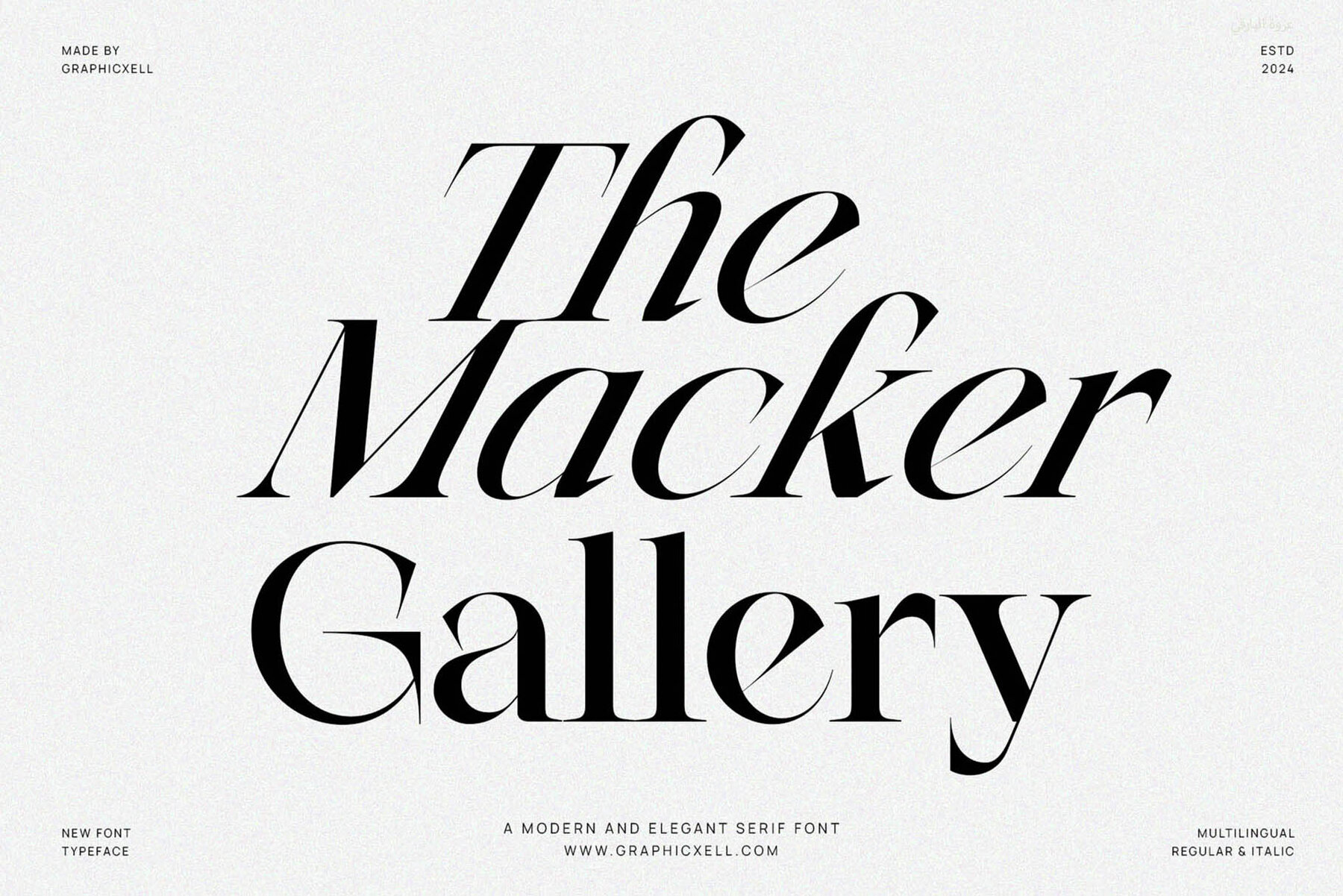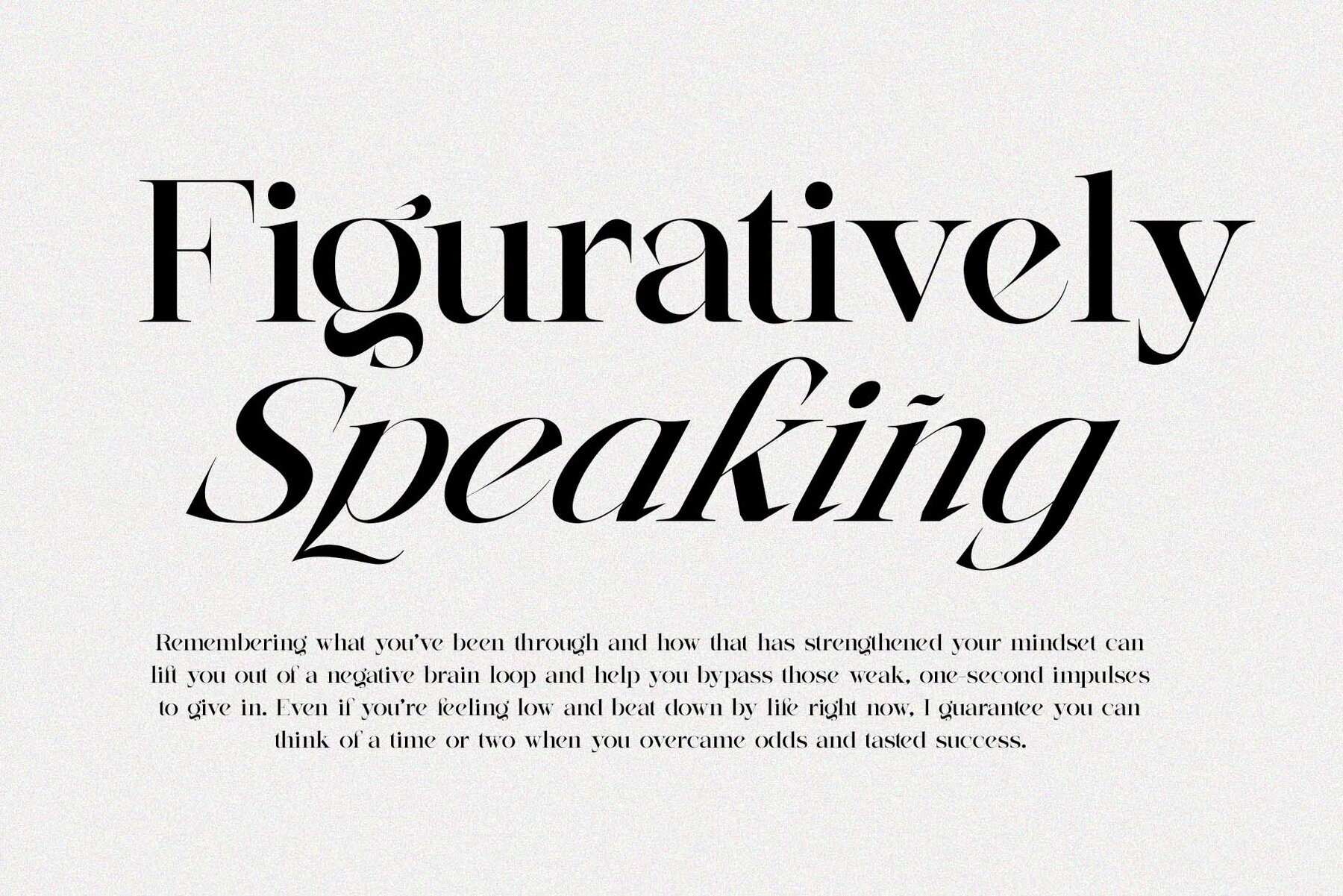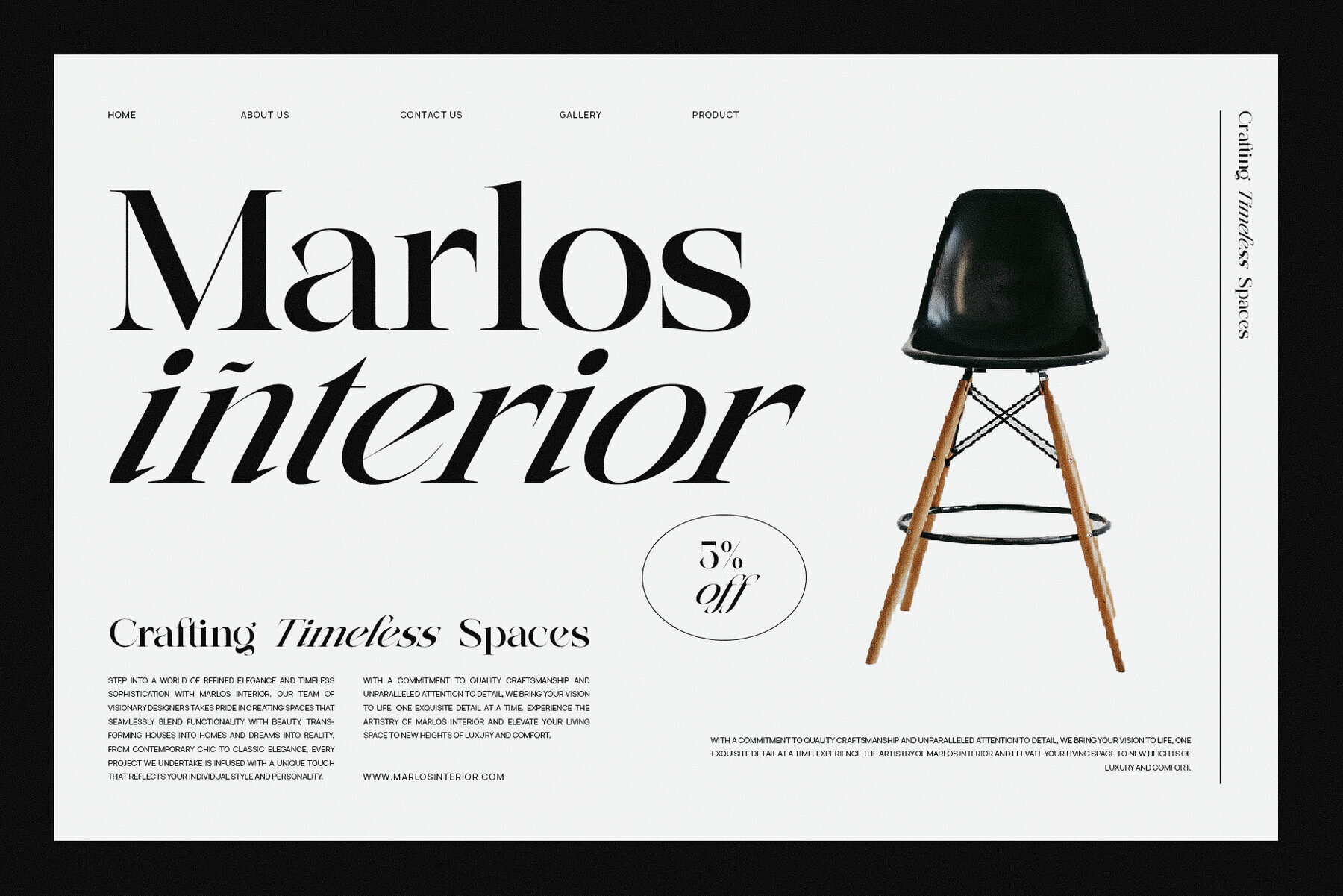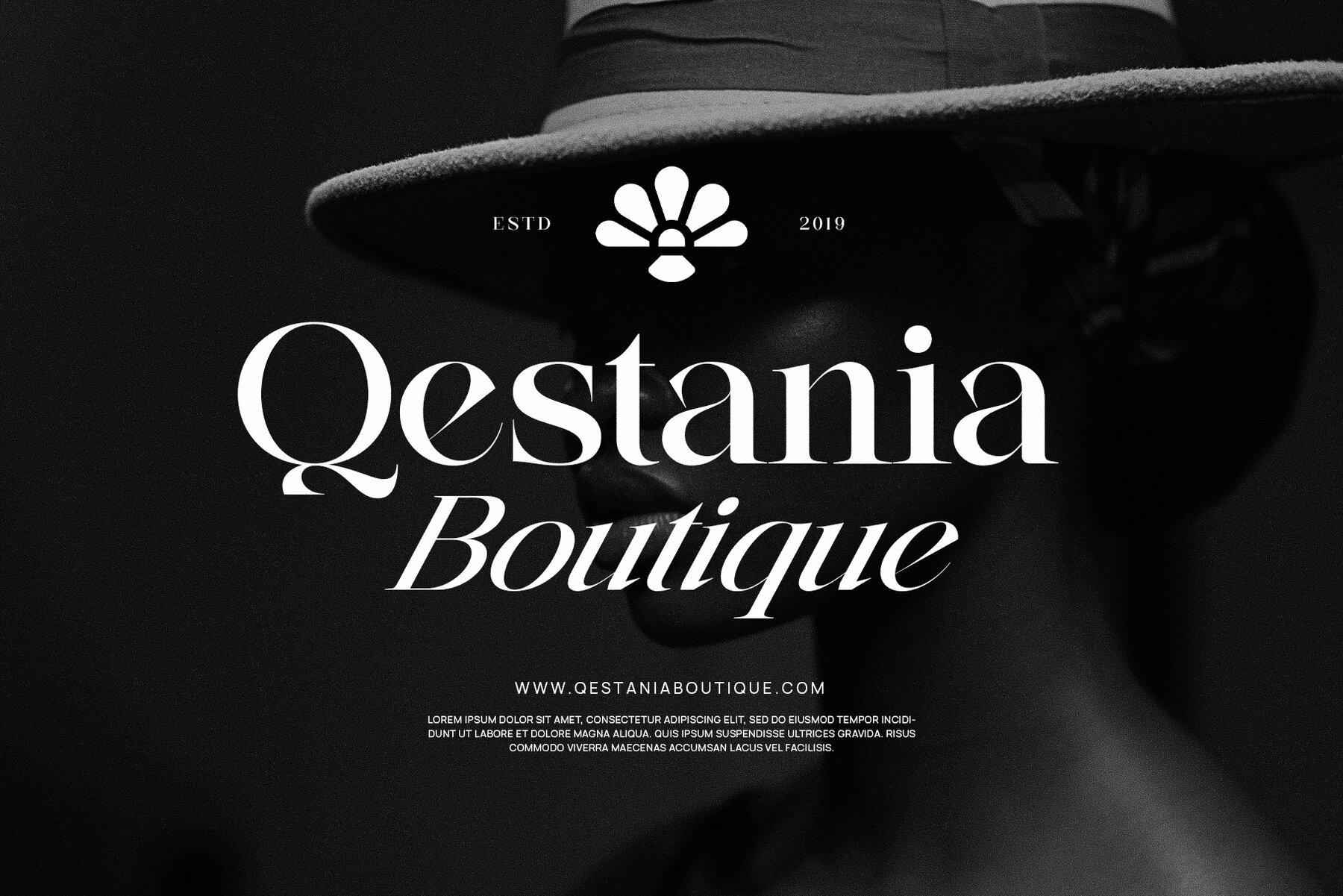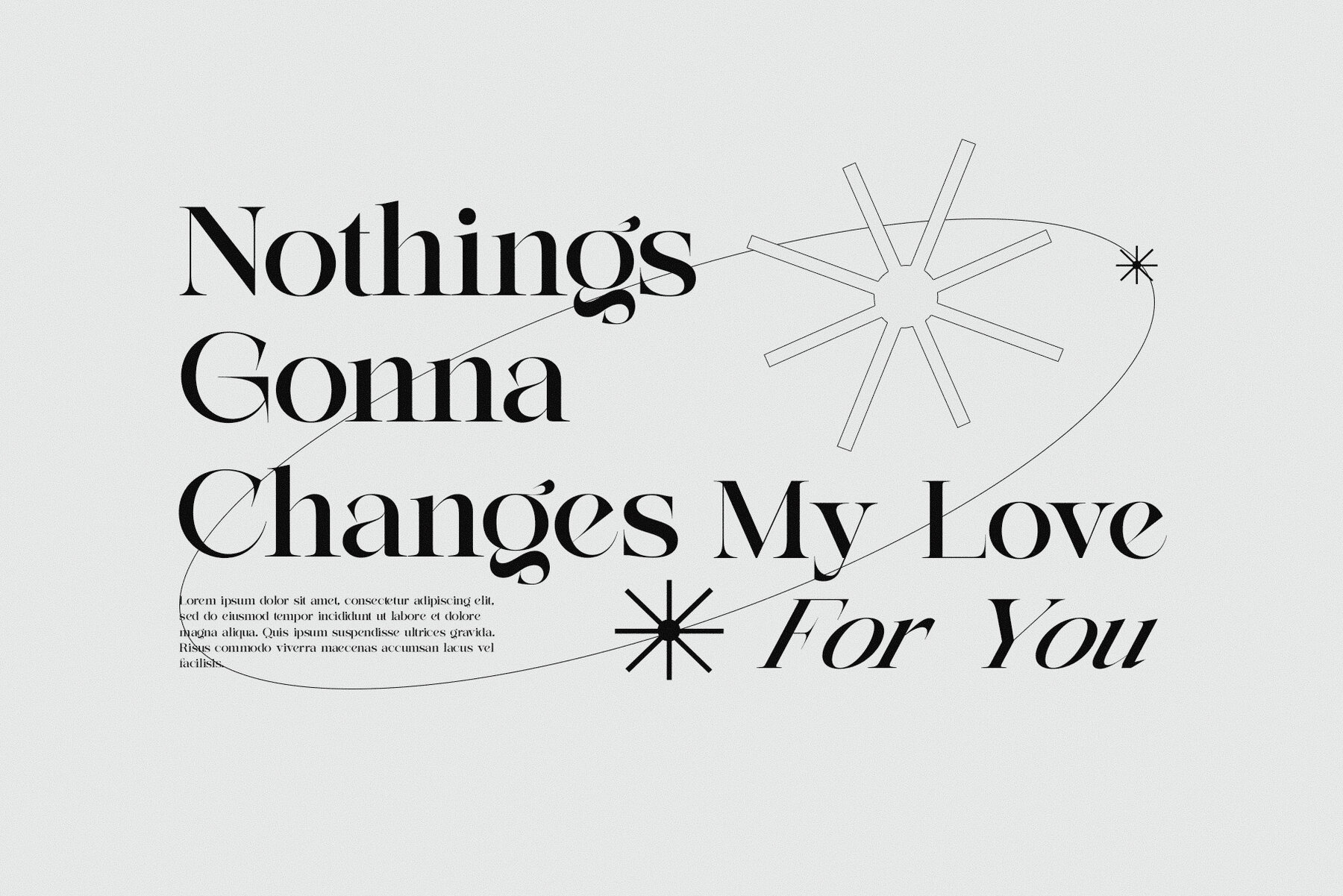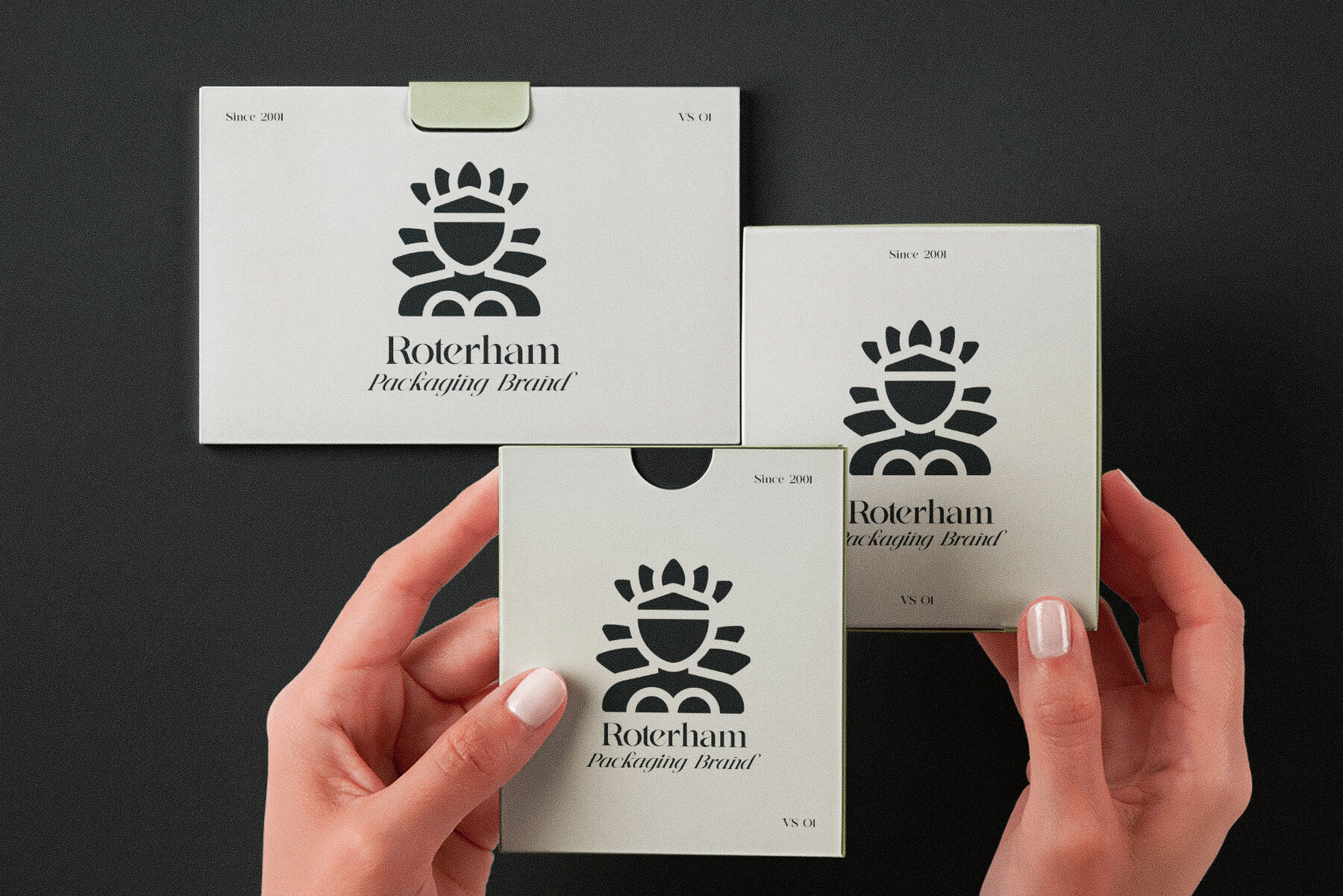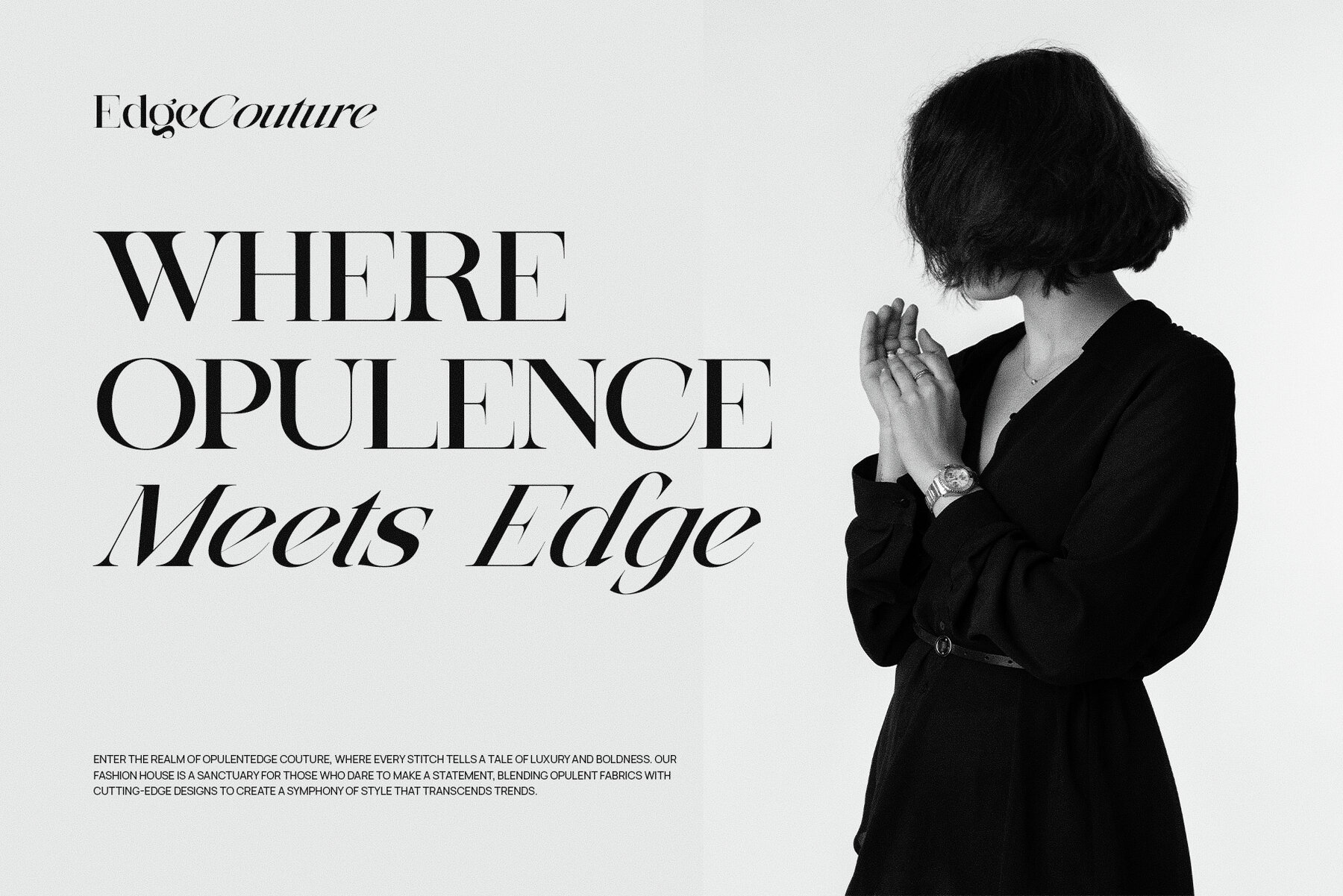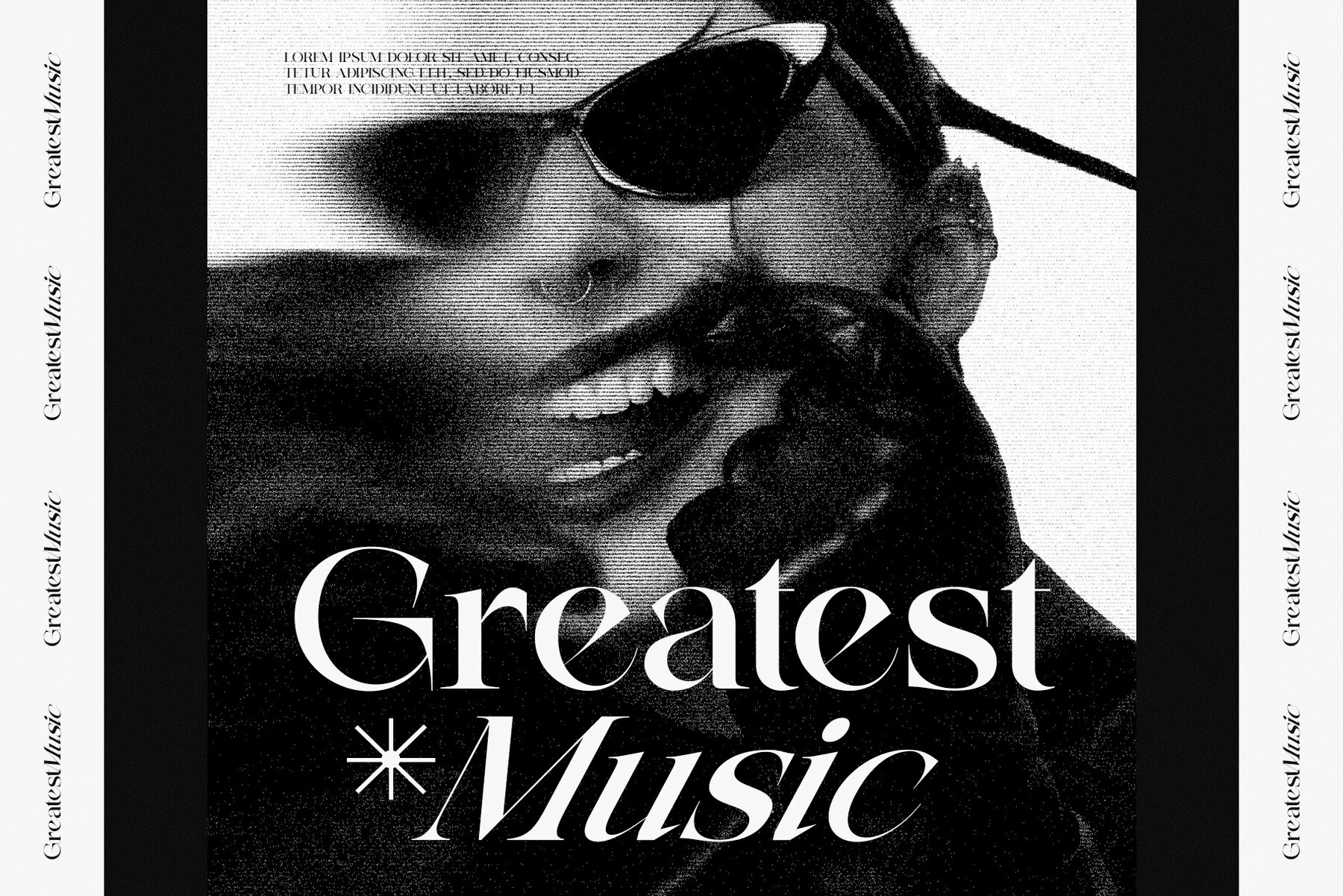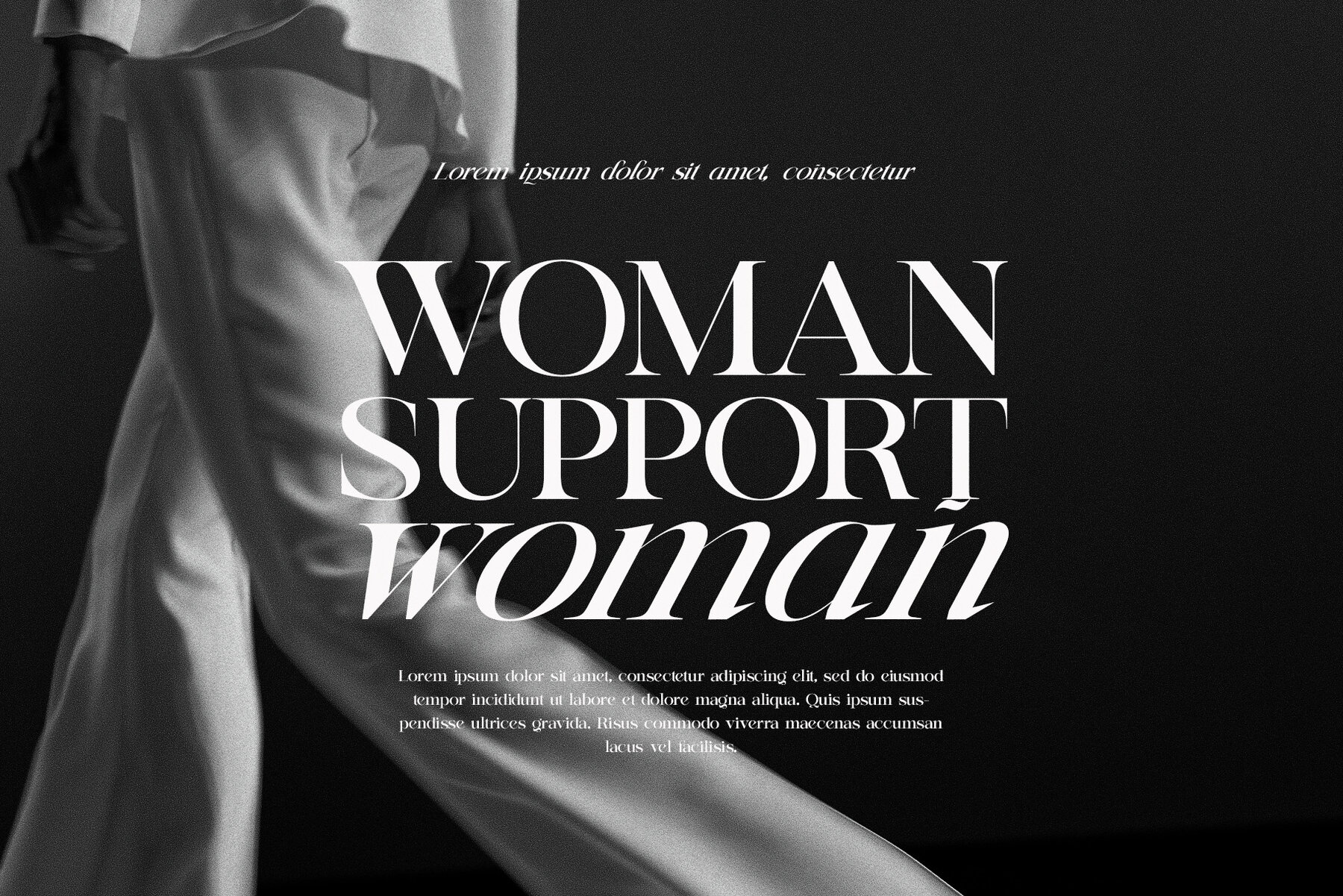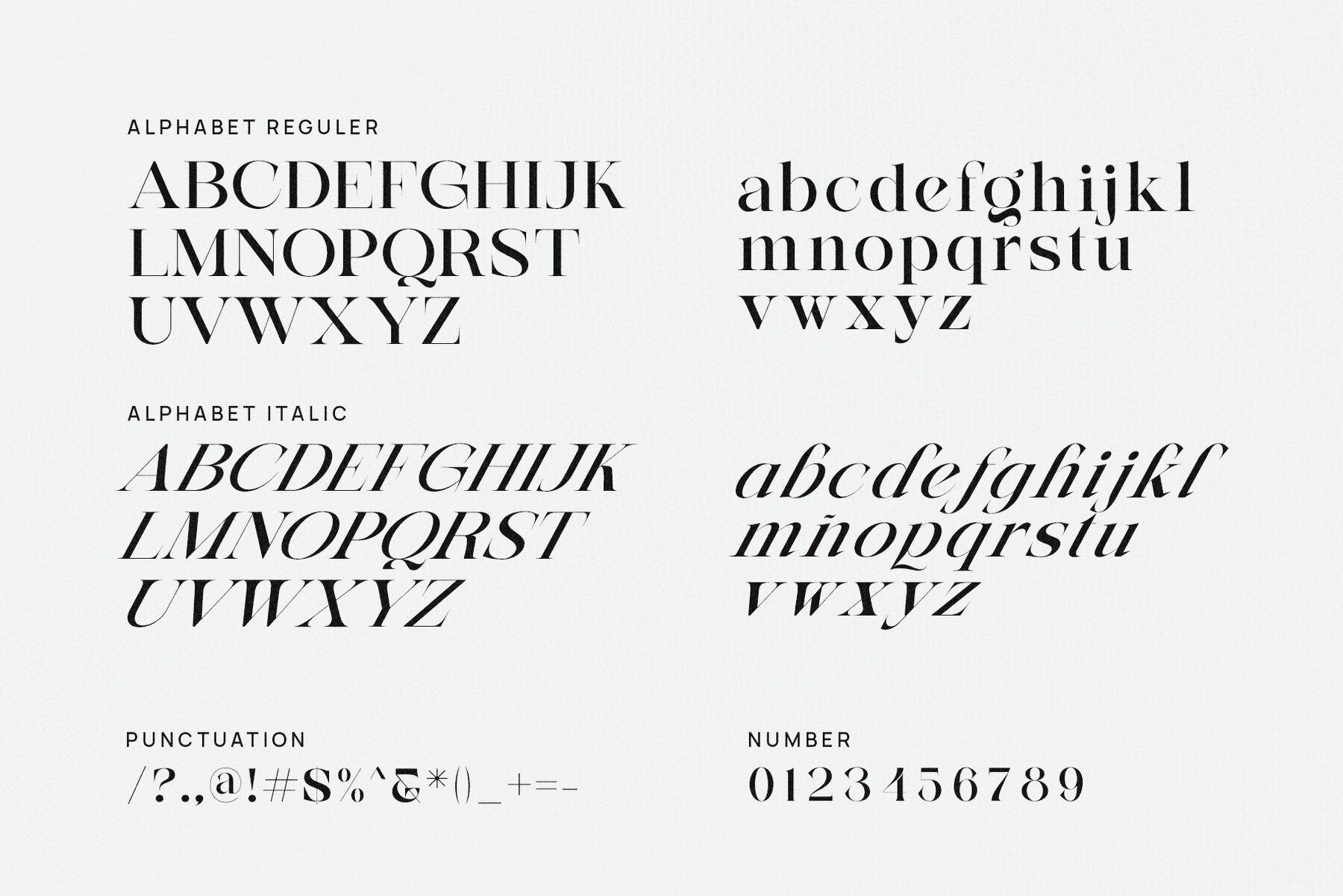
The Macker Gallery Font
The Macker Gallery font is a sophisticated serif typeface that seamlessly blends elegance with modernity. Characterized by its distinctive small lines or strokes at the ends of each letter, this font offers two styles: regular and italic.
The regular style is defined by its balanced weight, while the italic style features a forward-leaning slant. Both styles maintain high readability, making them ideal for various uses, including logos, websites, and branding. The font is well-suited for small-sized text due to its clarity.
The Macker Gallery's versatility makes it perfect for both product and personal branding. The combination of elegance and modern design enhances the branding's visual appeal.